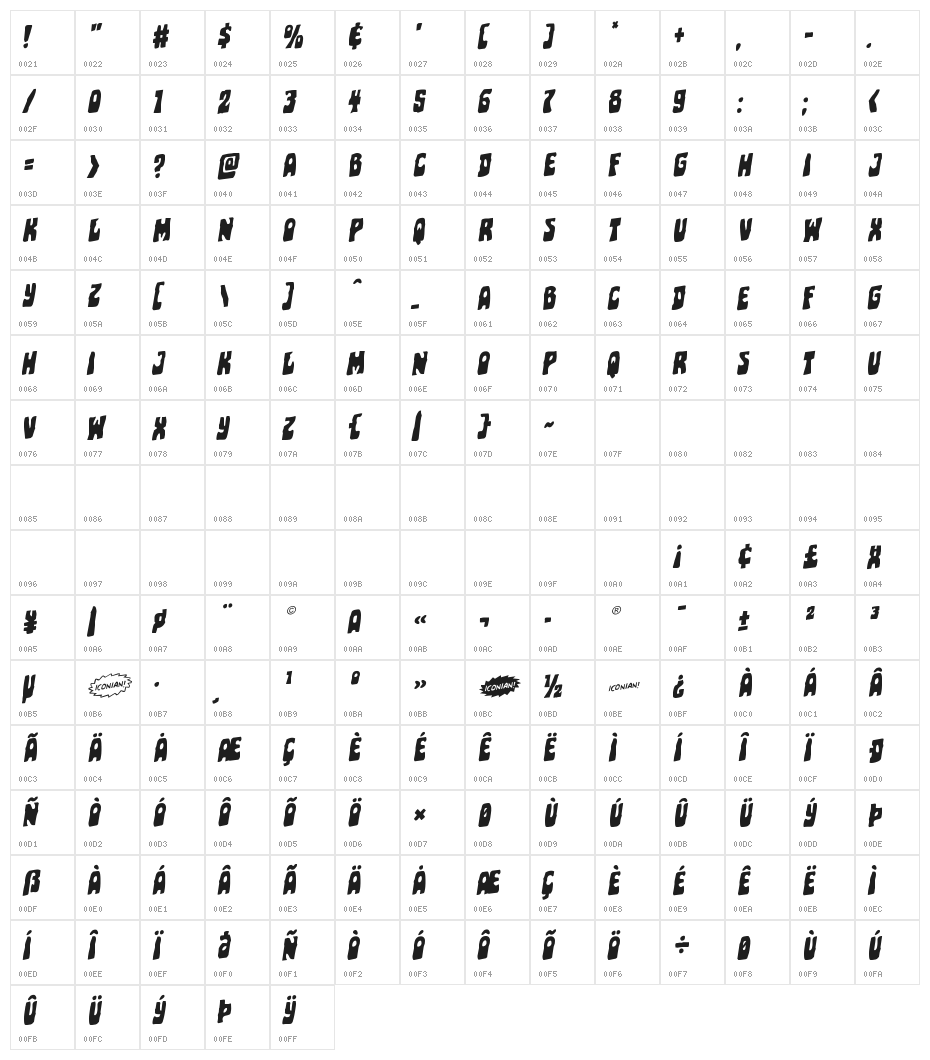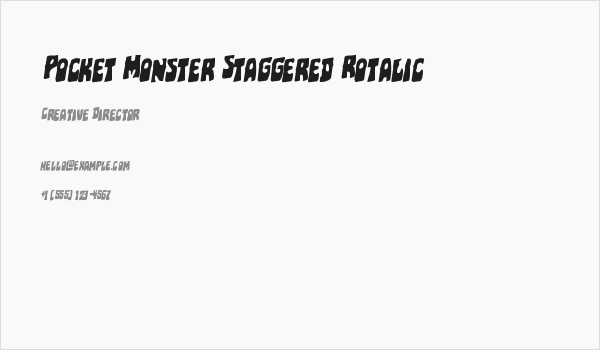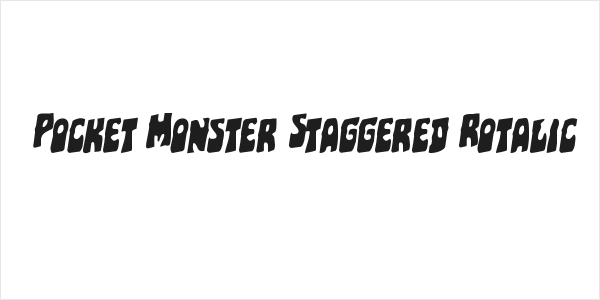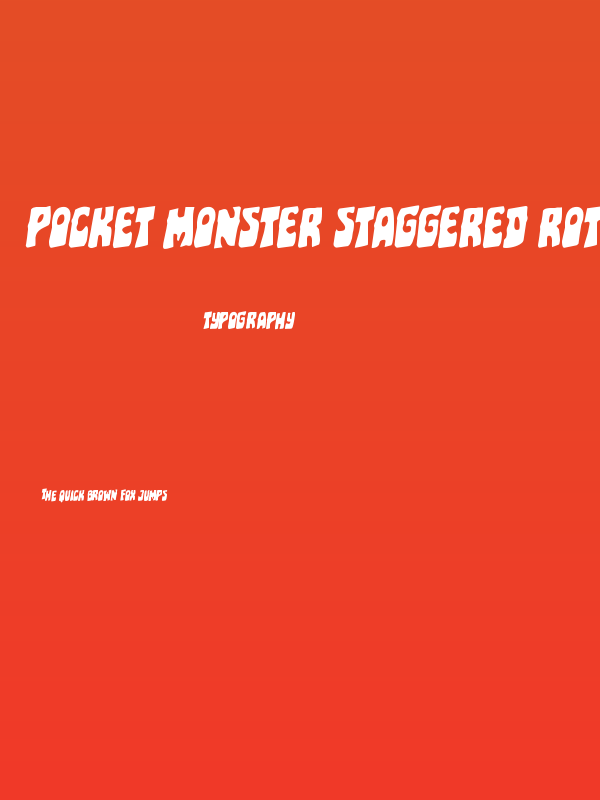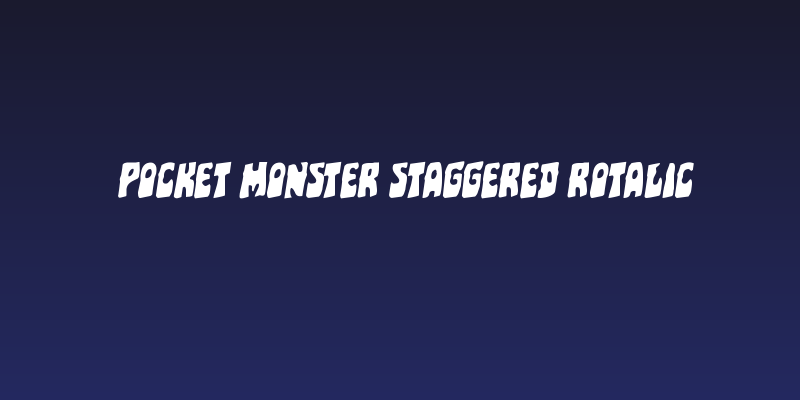
Pocket Monster Staggered Rotalic Font
Pocket Monster Staggered Rotalic Description
This font features a bold and dynamic style with a staggered, italicized appearance. The characters have a playful, energetic feel, with thick strokes and irregular shapes that give it a unique, eye-catching look. The uppercase and lowercase letters maintain a consistent style, while the numbers and special characters complement the overall design. The font's boldness and distinctive form make it suitable for projects that require a strong visual impact.
| Proposed Projects | Ideal for use in posters, video game titles, branding for energetic products, and any design needing a bold statement. |